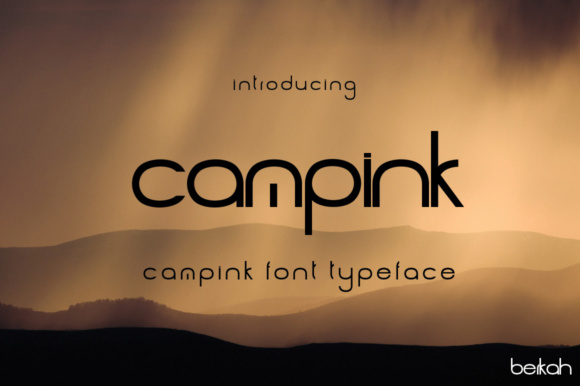
The Campink Font: A Rounded Sans Serif Delight for Designers and Crafters
An Honest Review of Campink
What I Love About Campink ✨
- 💬 Friendly and approachable feel: Campink’s rounded edges make it perfect for designs that require a softer touch.
- ✅ Highly legible: Even at smaller font sizes, Campink remains clear and easy to read.
- 🎨 Versatile: Suitable for a wide range of projects, from branding and advertising to crafting and DIY tutorials.
- 👍 OpenType features: Campink comes with a range of stylistic alternates and glyphs, making it a great choice for designers who want to add a personal touch to their work.
- ⚠️ Limited character set: While Campink has a wide range of characters, it may not have every special character or symbol you need.
- ⚠️ Not ideal for body text: While legible, Campink’s rounded edges can make it less suitable for long blocks of text.
The Story Behind Campink
Campink was designed with the goal of creating a friendly, approachable font for crafters and designers. Its rounded edges and clean lines make it perfect for a wide range of projects, from branding and advertising to crafting and DIY tutorials.
| Font Name | Campink Font |
| What is Campink? | Campink is a rounded sans serif font designed for crafters, designers, and creative hobbyists. |
| Does Campink have OpenType features? | Yes, Campink comes with a range of OpenType features, including stylistic alternates and glyphs. |